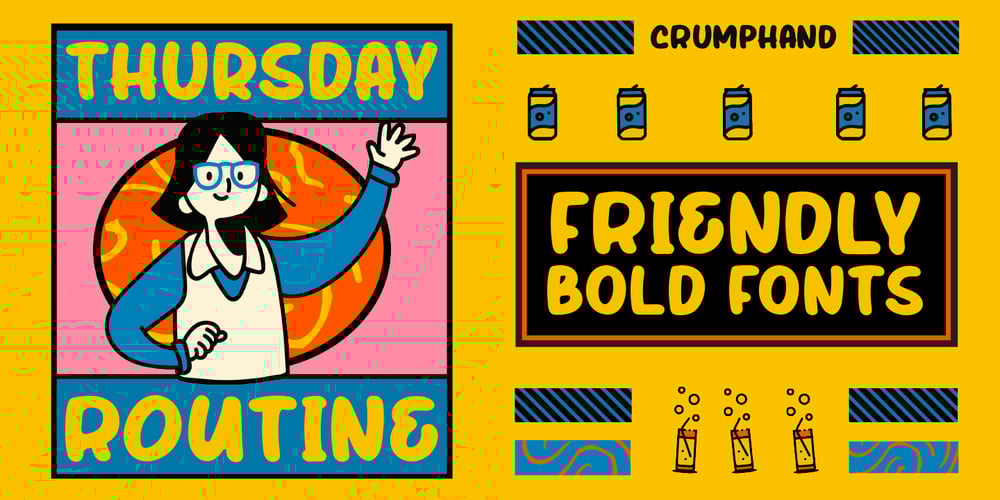
Thursday Routine
Thursday Routine font
Thursday Routine Font Family was designed by Stefie Justprince and published by Crumphand. Thursday Routine contains 2 styles and family package options. Hello, introducing the new font Thursday Routine.Thursday Routine is a Bold Friendly font. The font is available on Italic too.Good reading, Readability 100%. Perfect for your graphic.What’s Included ? Uppercase Lowercase Symbols Numerals Multilingual Support